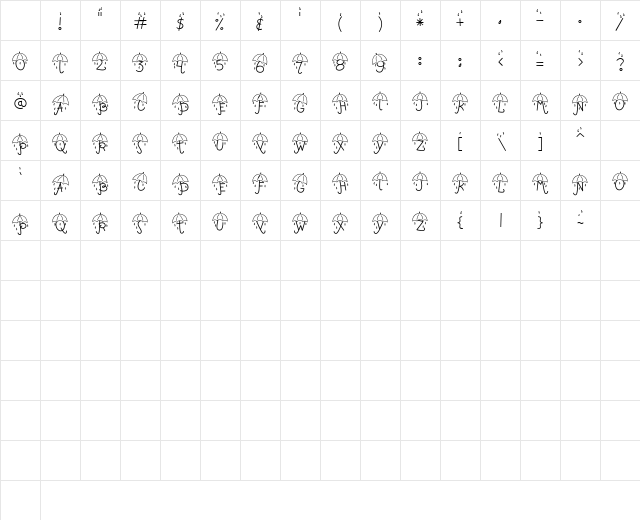
LD Umbrella Regular
Design Context for LD Umbrella
LD Umbrella is a composed and adaptable typeface that performs quietly and consistently across a wide range of design contexts.